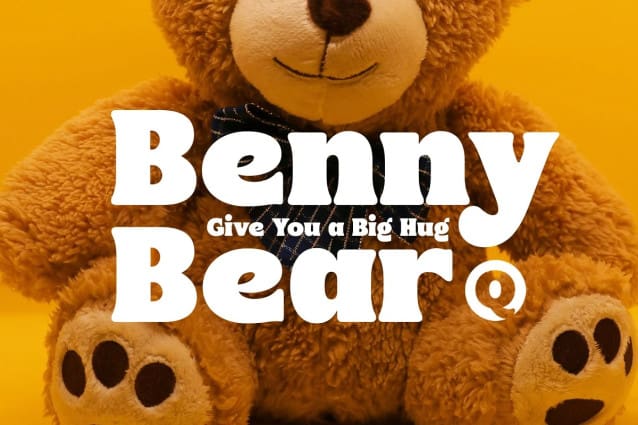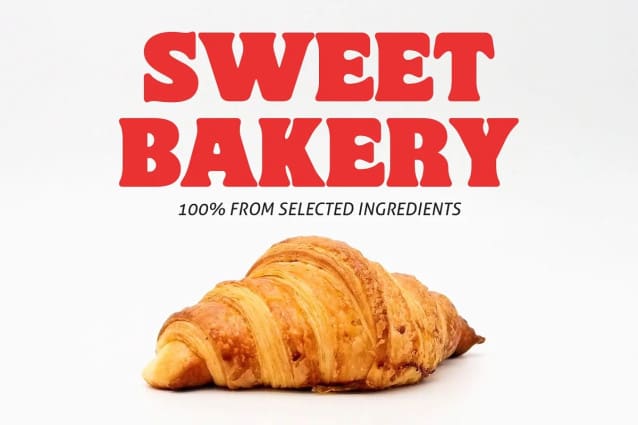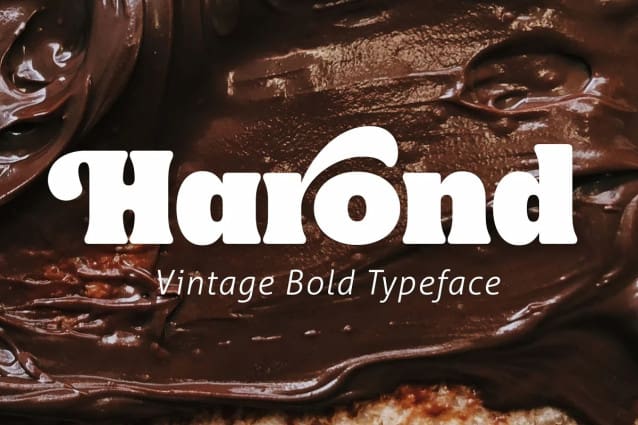
Harond Font
Harond Font, a bold serif font with a retro touch. Inspired by the dynamic and chubby typography style of the 70s, this font exudes a delightful, playful, yet elegant impression, making it ideal for various design themes, especially in the realm of food-related design.
Harond Font is a display font best suited for larger sizes. Its plump form and tight spacing offer a delightful design experience and captivate attention. It’s the perfect choice for use in posters, decals, logos, branding, flyers, promotional materials, motion graphics, packaging, and much more!
But that’s not all you get with this font. In addition to the standard alphabet, Harond also comes with multilingual support and numerous special characters, making it easier to enhance your designs.